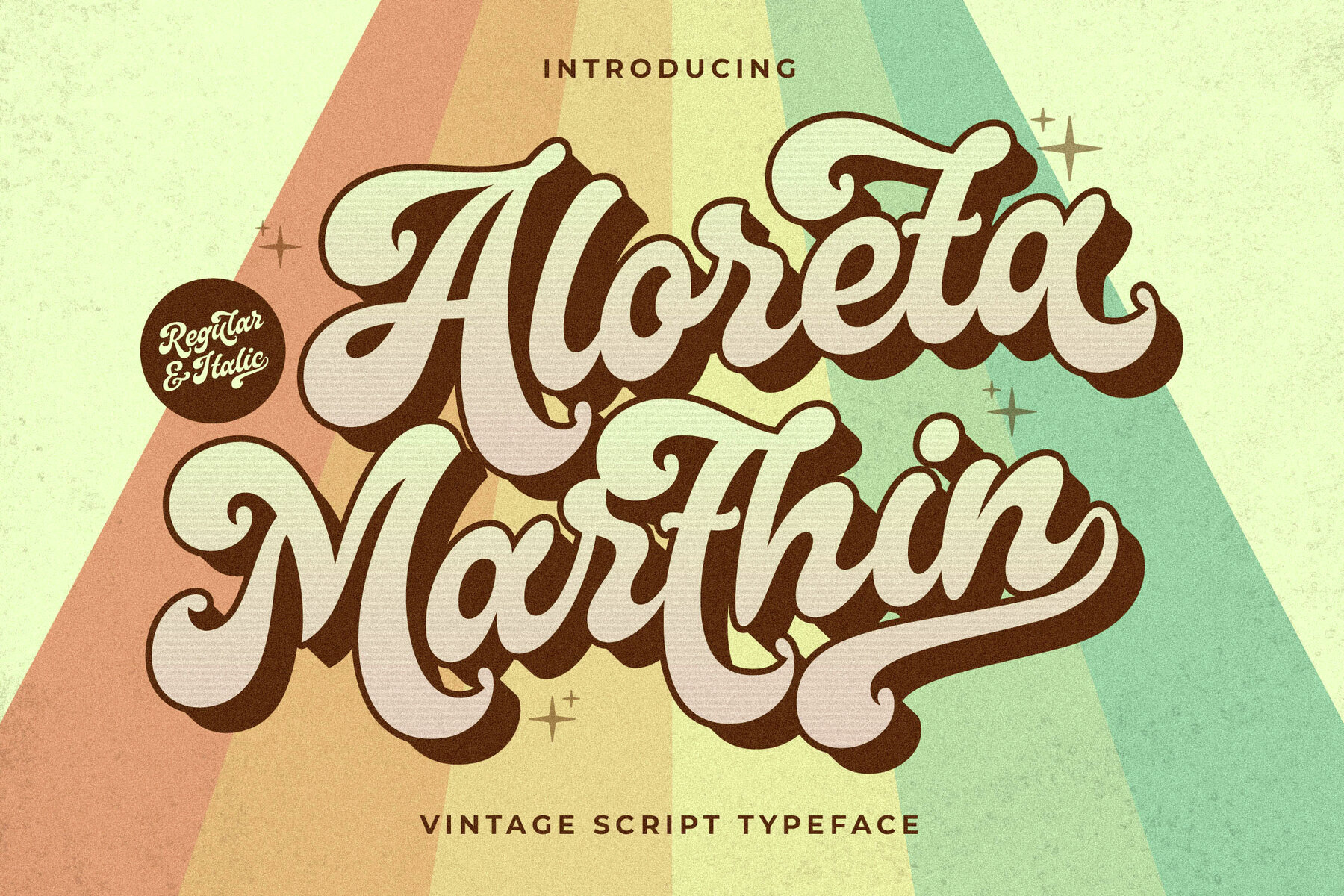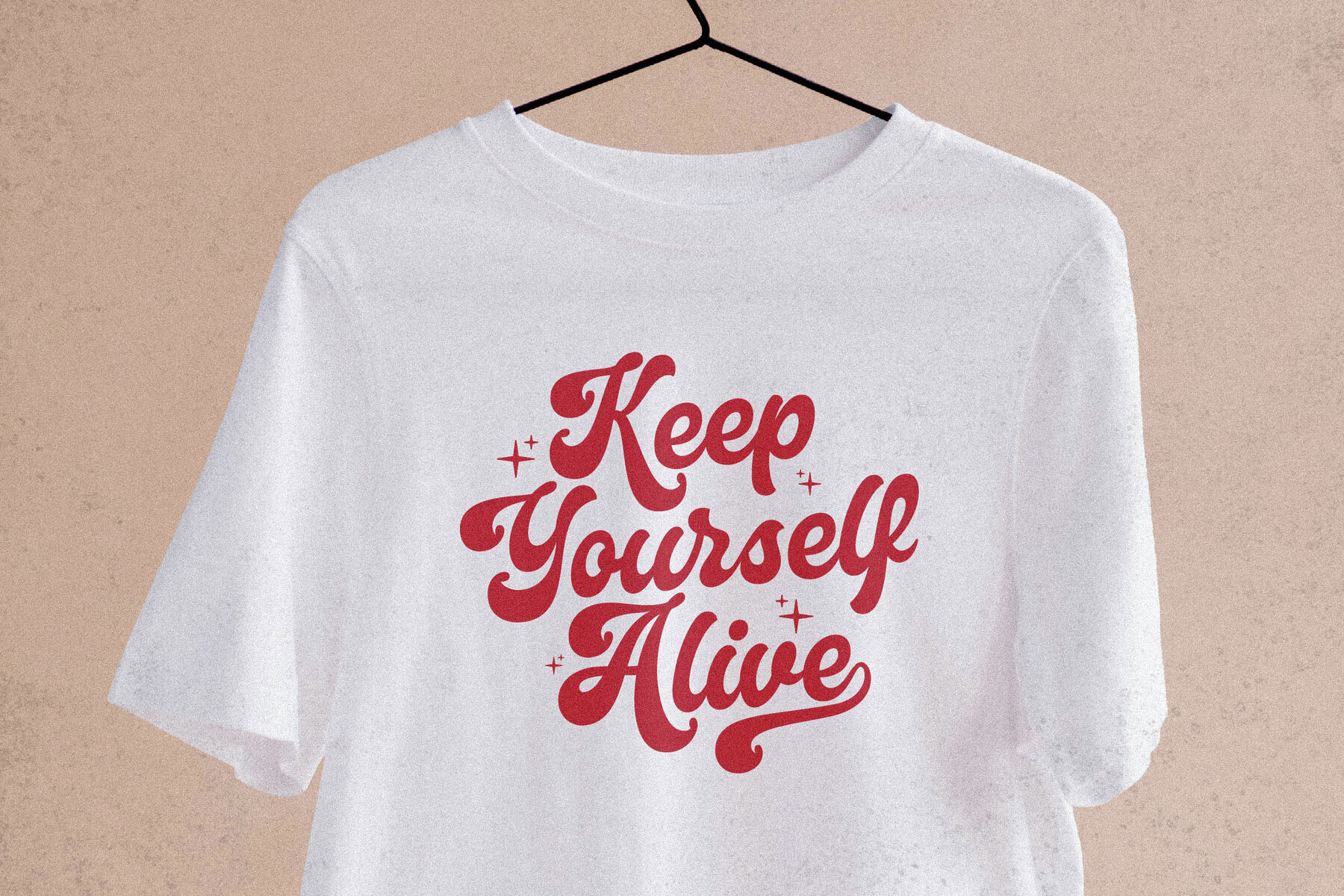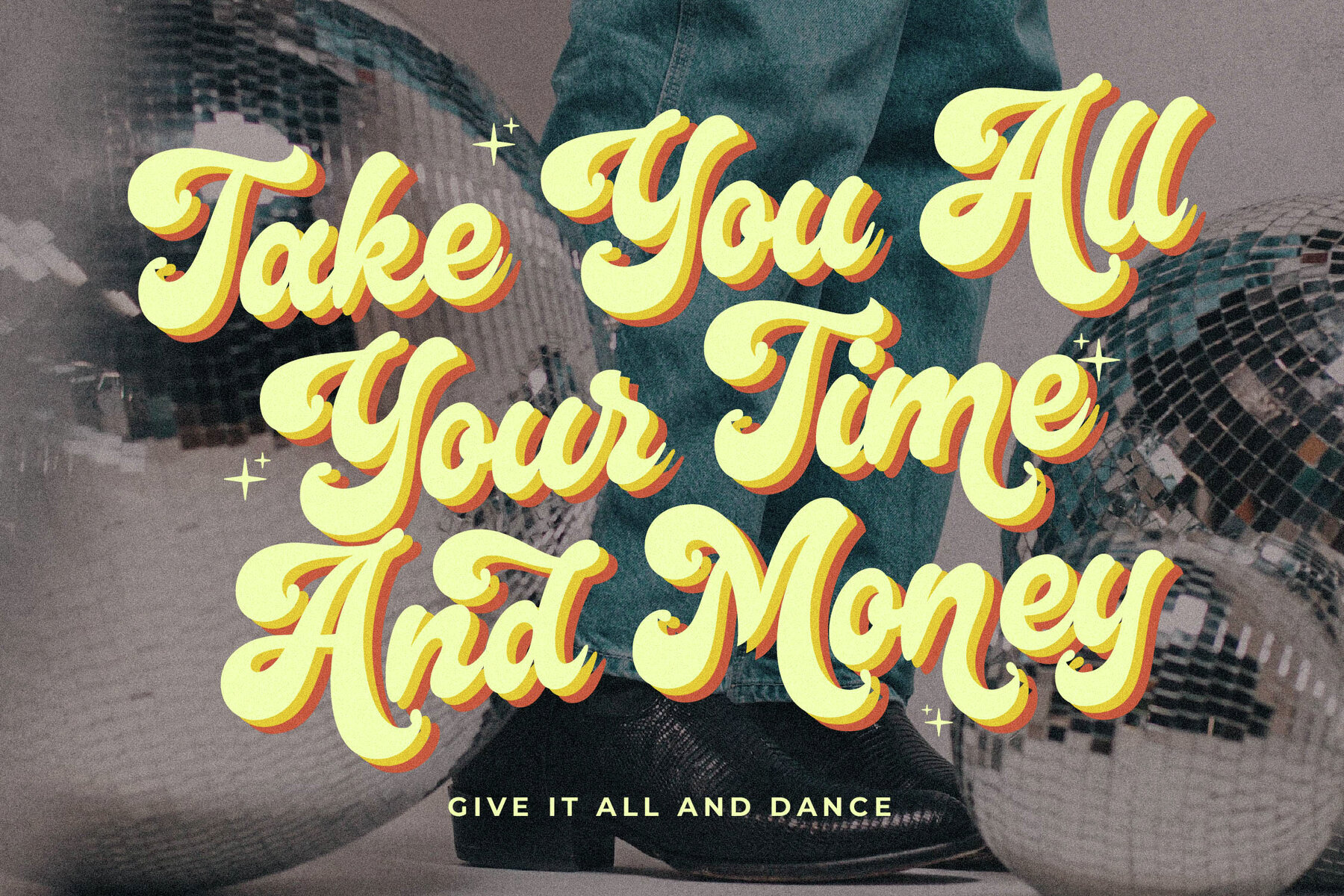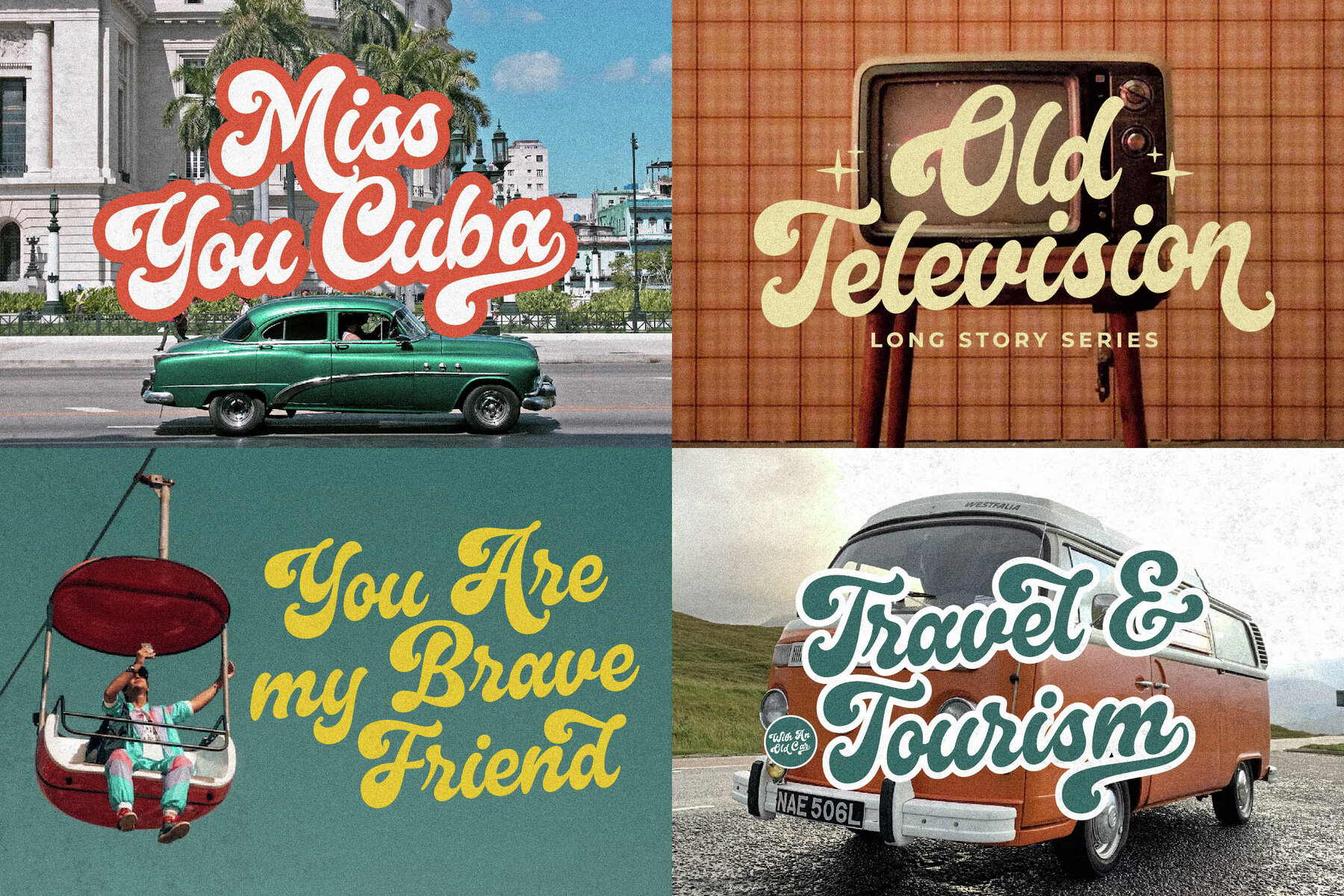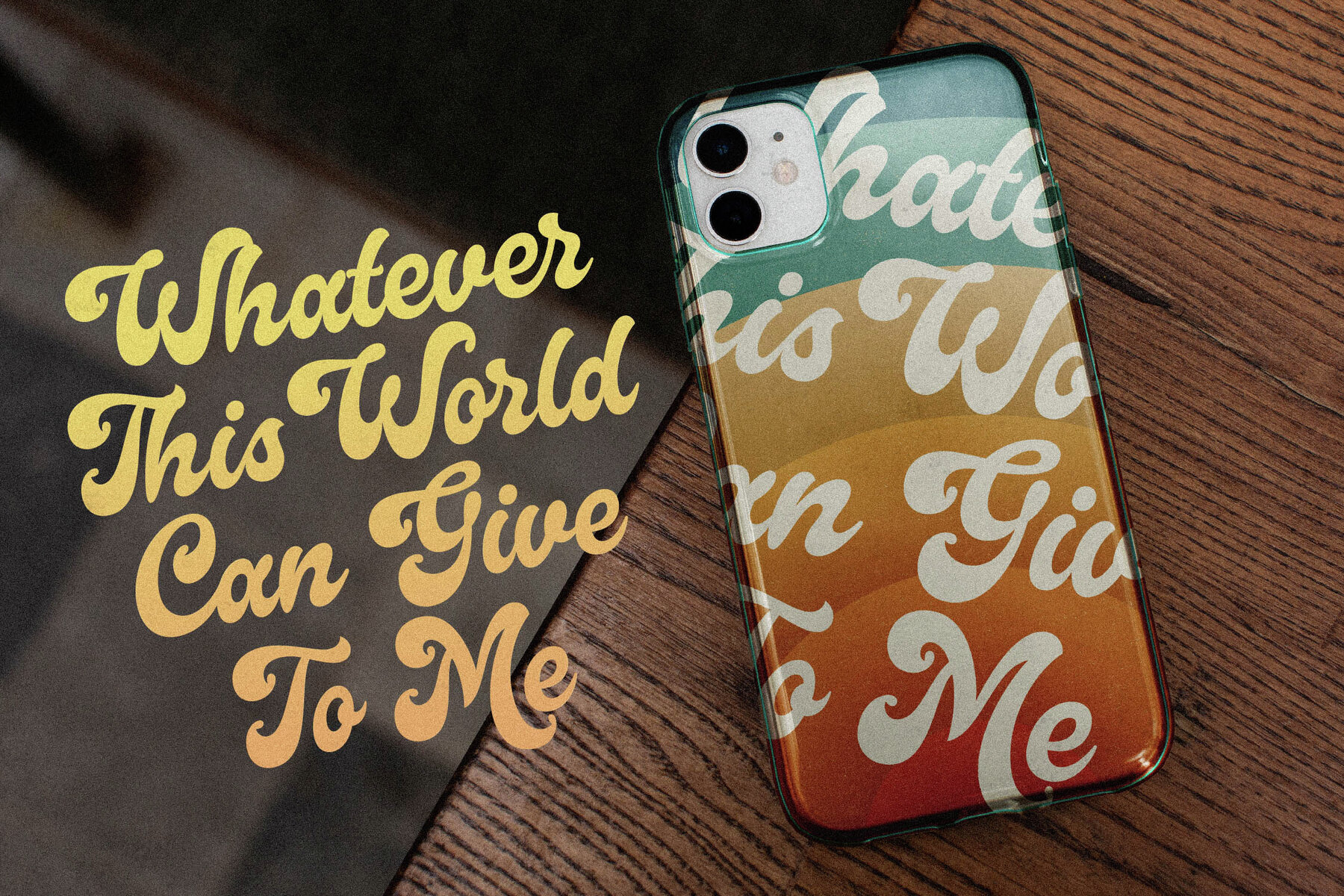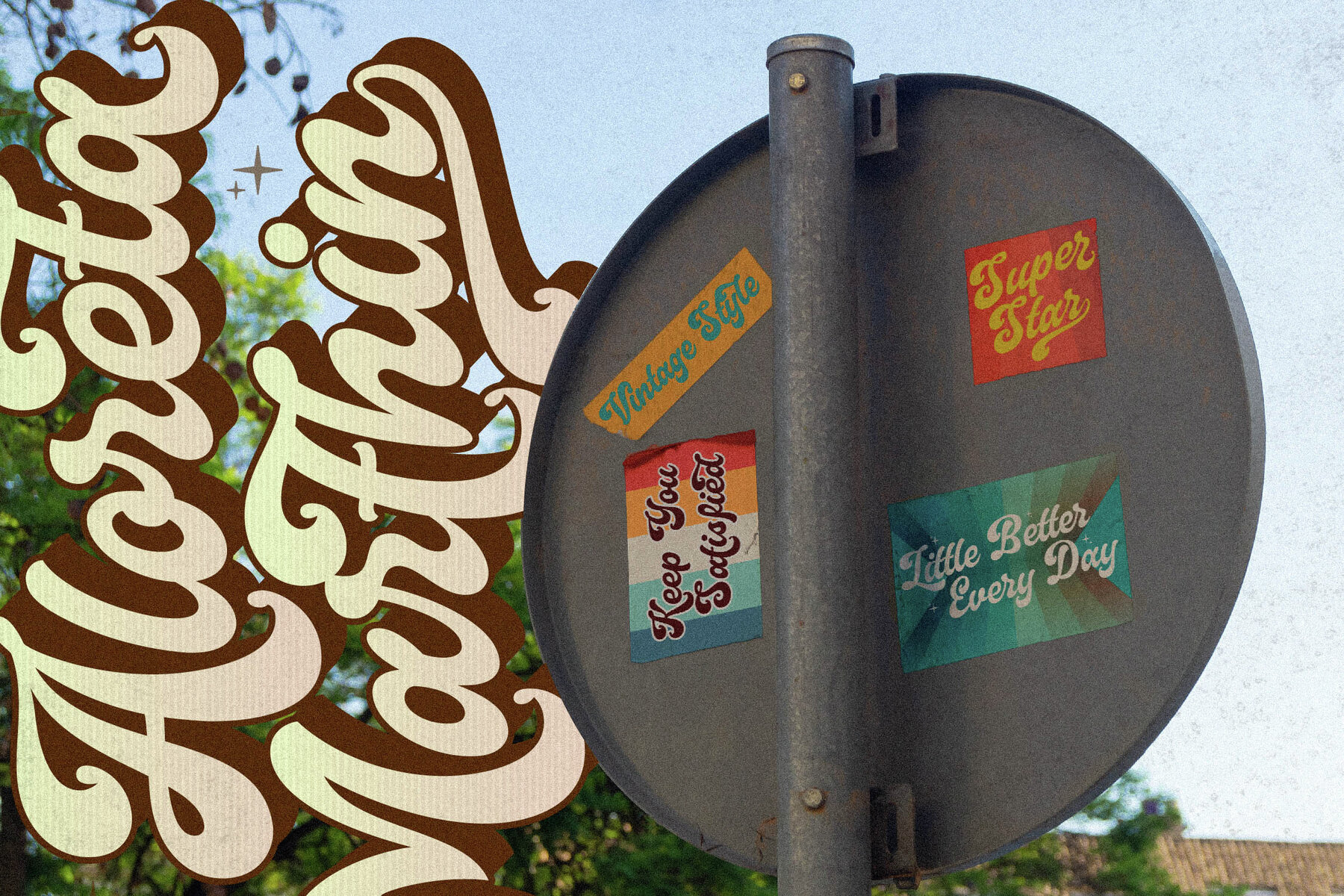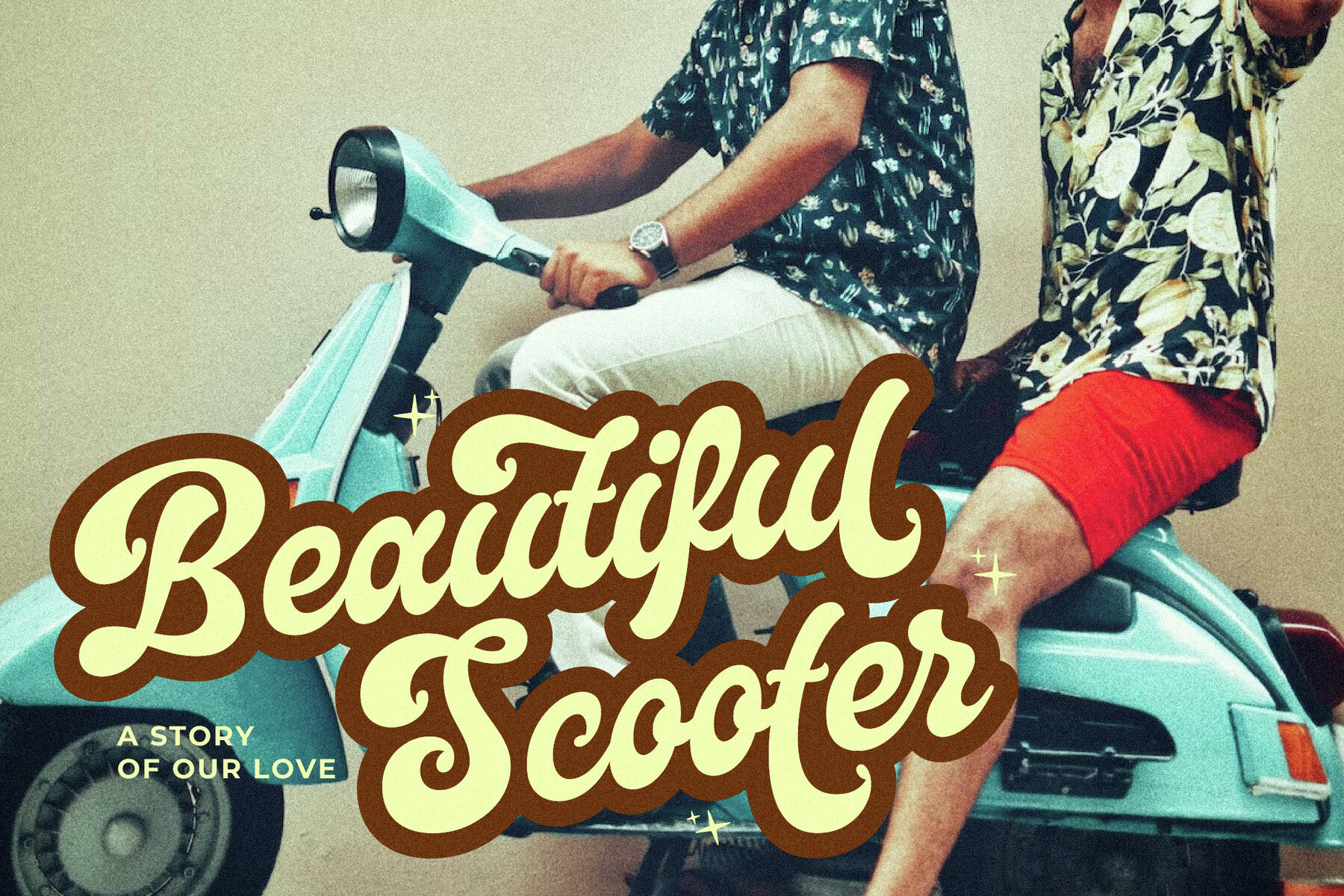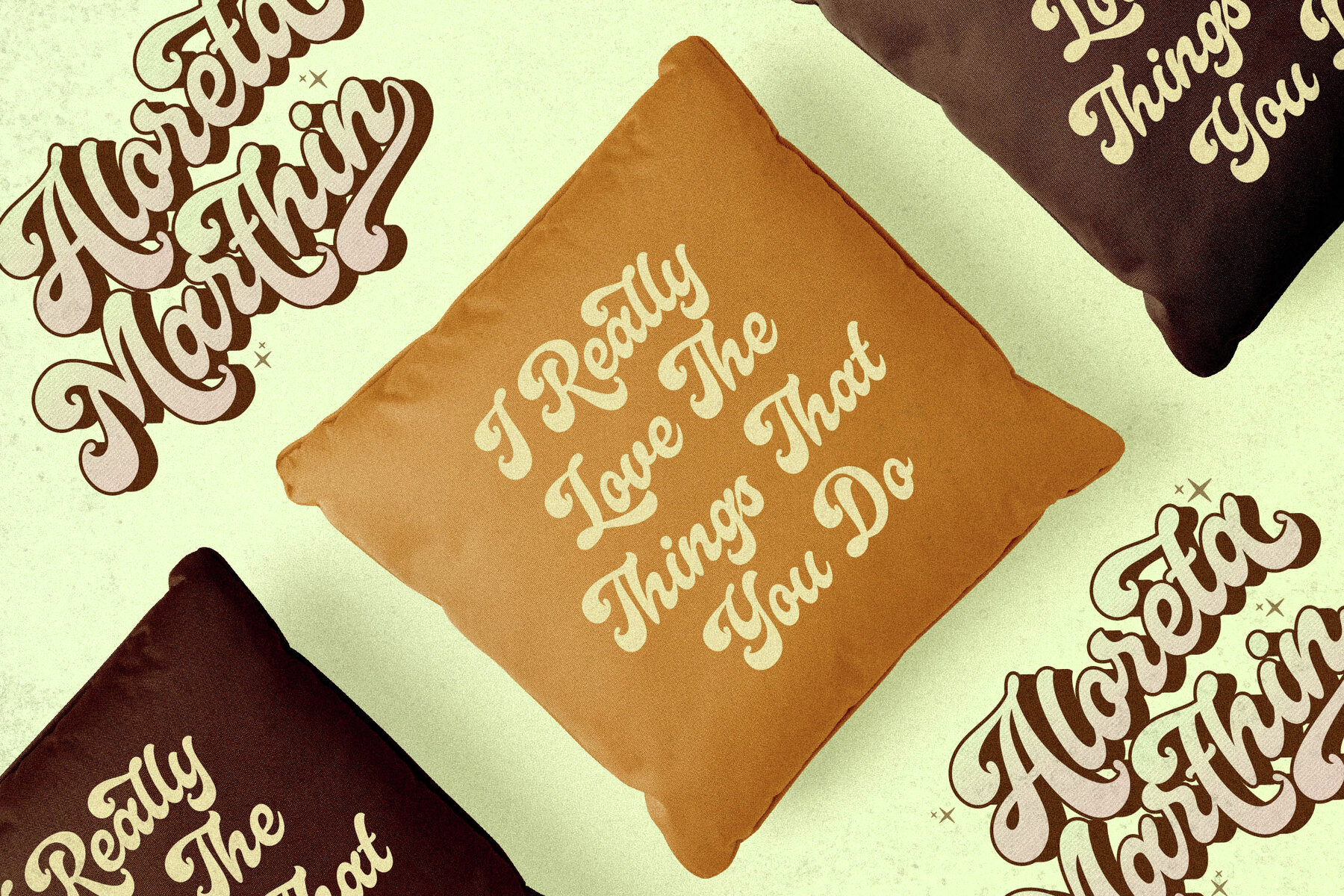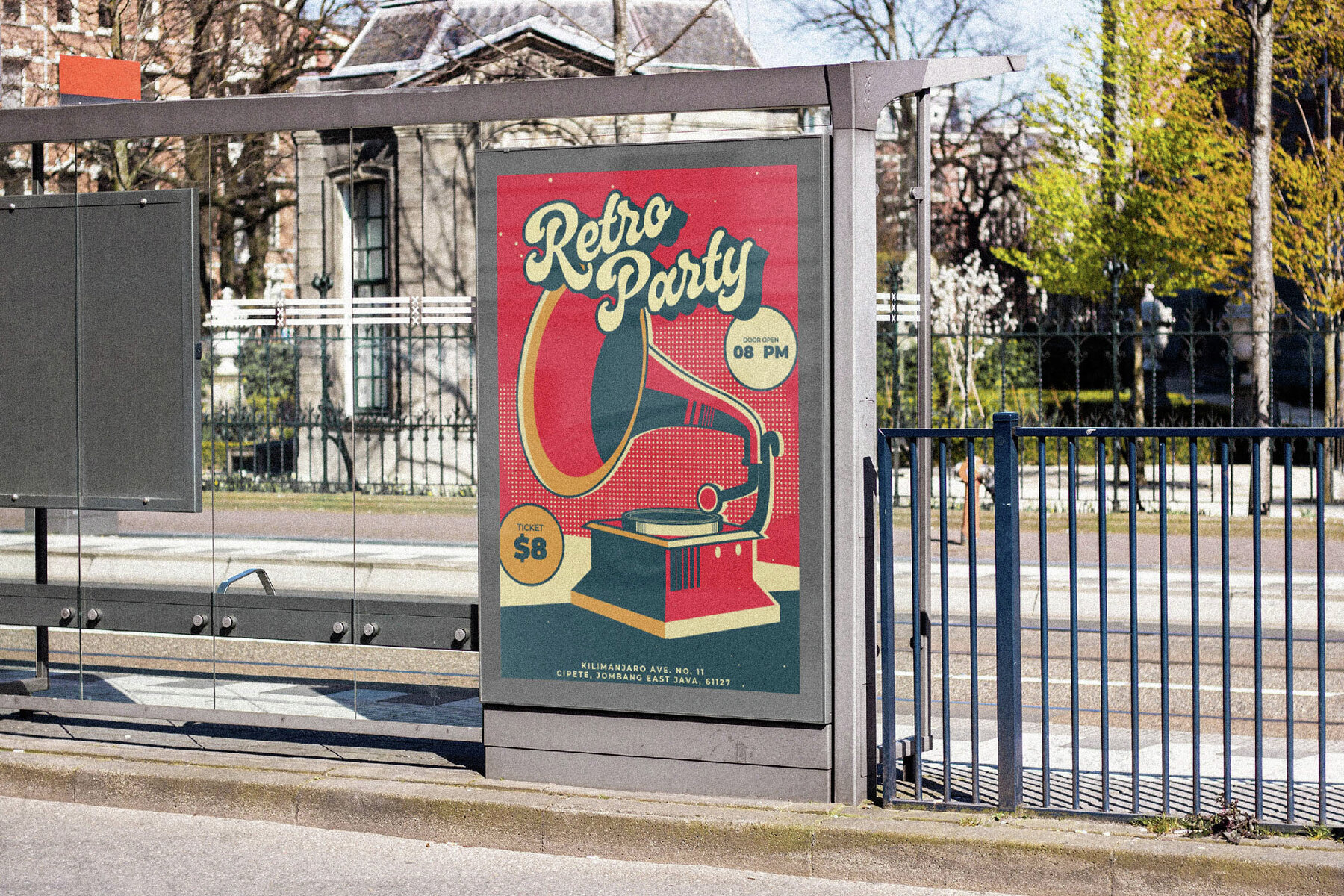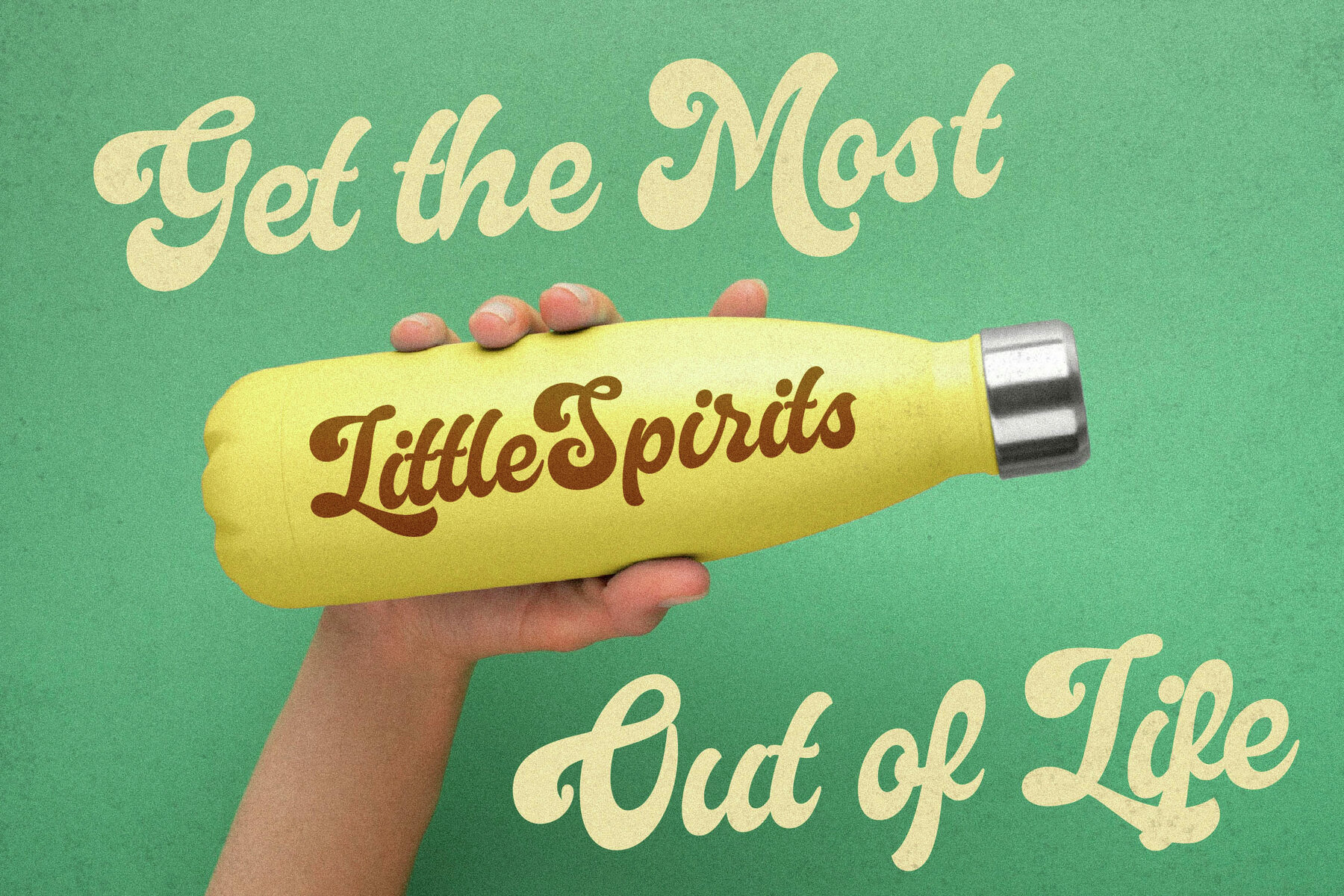
Aloreta Marthin Font
Aloreta Marthin
Aloreta Marthin Italic
Introducing the Aloreta Marthin Typeface, a sophisticated serif font blending modern elegance with a classic allure. Designed by Storytype Studio, this typeface shines with its unique style and contemporary aesthetics. Ideal for luxury logos, book and movie titles, fashion branding, magazines, clothing designs, and inspirational quotes, Aloreta Marthin is the epitome of versatility and class.Aloreta Marthin Typeface